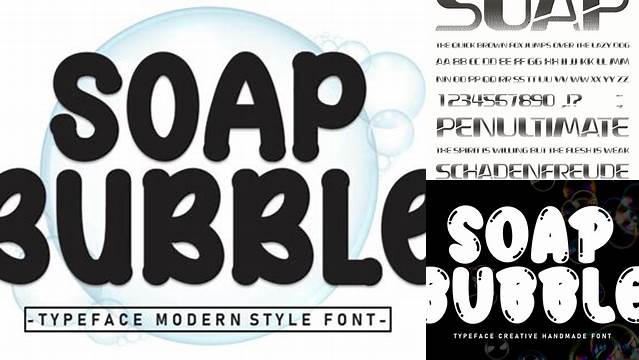
Soap Fonts: Soft & Bubbly Typeface Guide
Hey everyone! Ever wondered about those fonts that just feel soft, bubbly, and, well, like soap? You know, the ones that give off a friendly and approachable vibe? If you're nodding along, you're in the right place! In this article, we're diving deep into the world of soap-like fonts, exploring what makes them so unique, where you can use them, and some fantastic examples to get you inspired. So, buckle up and let's get this font party started!
What Makes a Font Look Like Soap?
So, what exactly gives a font that soap-like quality? It's not just about roundness, guys. It's a combination of several key characteristics that work together to create this unique aesthetic. Think about the visual properties of soap bubbles: they're soft, rounded, and have a certain fluidity to them. Fonts that emulate this often have these features:
Rounded Terminals and Strokes: This is probably the most defining characteristic. Rounded terminals are the ends of the strokes that make up the letters – instead of sharp edges or serifs, they're smooth and circular. This instantly softens the font's appearance, making it more approachable and less formal. The strokes themselves might also have a rounded quality, contributing to the overall bubbly feel. This is super important when choosing the right font.
Low Contrast: High-contrast fonts, where there's a significant difference in thickness between the thickest and thinnest parts of the letters, tend to look more elegant and formal. Soap-like fonts, on the other hand, usually have low contrast, meaning the strokes are more uniform in thickness. This creates a sense of smoothness and evenness, further enhancing the bubbly aesthetic. Think about it – soap bubbles don't have harsh lines or dramatic changes in shape.
Soft, Gentle Curves: Sharp angles and hard edges can make a font look aggressive or technical. Fonts that resemble soap often prioritize soft, gentle curves. These curves flow smoothly into one another, creating a sense of visual harmony and fluidity. This characteristic is crucial for replicating the organic, flowing nature of soap bubbles.
Slightly Condensed or Expanded Proportions: While not always the case, some soap-like fonts have proportions that are either slightly condensed (taller and narrower) or expanded (shorter and wider). This can add to the uniqueness of the font and make it stand out from more traditional typefaces. The specific proportions can influence the overall feel, with condensed fonts sometimes appearing more modern and expanded fonts feeling more playful.
Playful and Friendly Character: Ultimately, fonts that look like soap have a certain playful and friendly character. They avoid harshness and formality, instead opting for a lighthearted and inviting appearance. This makes them perfect for designs that aim to be approachable and welcoming, such as branding for children's products, creative projects, or websites with a fun and casual vibe. The overall vibe is super important for a soap-like feel.
In short, a soap-like font is a carefully crafted blend of rounded forms, low contrast, soft curves, and a playful personality. It's a font that's designed to make you smile and feel at ease.
Where to Use Soap-Like Fonts
Okay, so now we know what makes a font look like soap, but where can we actually use these bubbly beauties? Well, guys, the possibilities are surprisingly diverse! These fonts aren't just for kids' birthday parties (though they'd be great for that too!). Their friendly and approachable nature makes them suitable for a wide range of projects. Here are some ideas to get your creative juices flowing:
Branding for Children's Products and Services: This is a no-brainer. Soap-like fonts are a natural fit for anything targeting children. Their playful and friendly aesthetic instantly resonates with kids and parents alike. Think logos for toy stores, packaging for baby products, or websites for children's entertainment. The key is to create a brand identity that is both appealing and trustworthy, and these fonts can help achieve that balance.
Creative and Playful Websites: If your website has a fun, casual, or whimsical vibe, a soap-like font can be a fantastic choice for headings, body text, or even navigational elements. They can add personality and charm to your online presence, making your site more engaging and memorable for visitors. Imagine a website for an artisan soap maker using a bubbly font – it's the perfect visual complement to the product itself!
Logos and Branding for Small Businesses: Don't underestimate the power of a soap-like font for branding outside the children's market. If your business has a friendly, approachable, and creative image, these fonts can be an excellent choice. Think coffee shops, bakeries, craft stores, or any business that wants to project a welcoming and down-to-earth personality. A well-chosen font can be the cornerstone of a brand's visual identity.
So go ahead, embrace the soapy side of typography and let your creativity flow! You might just be surprised at the delightful results you can achieve. And who knows, you might even start seeing the world in a whole new, bubbly light!